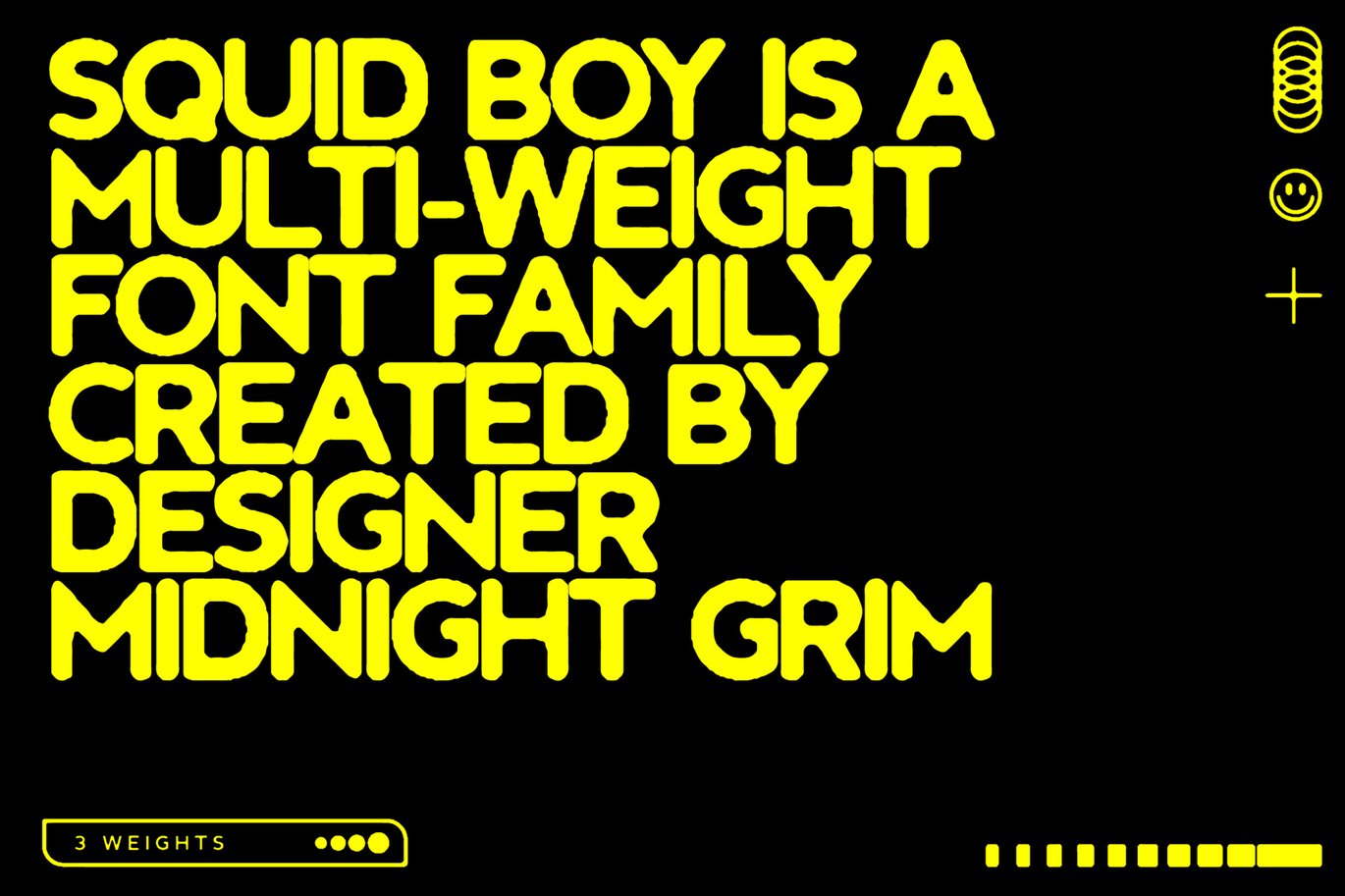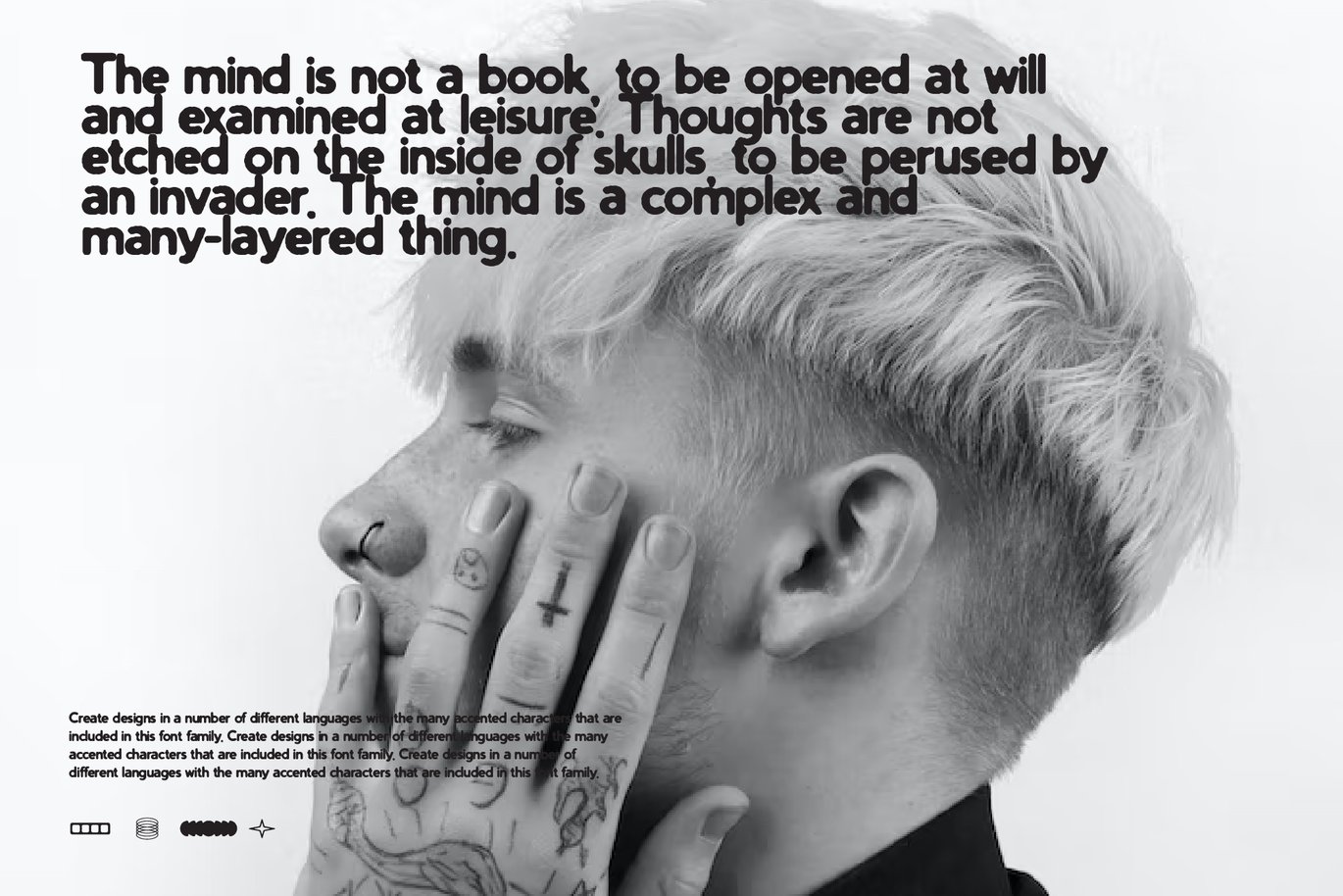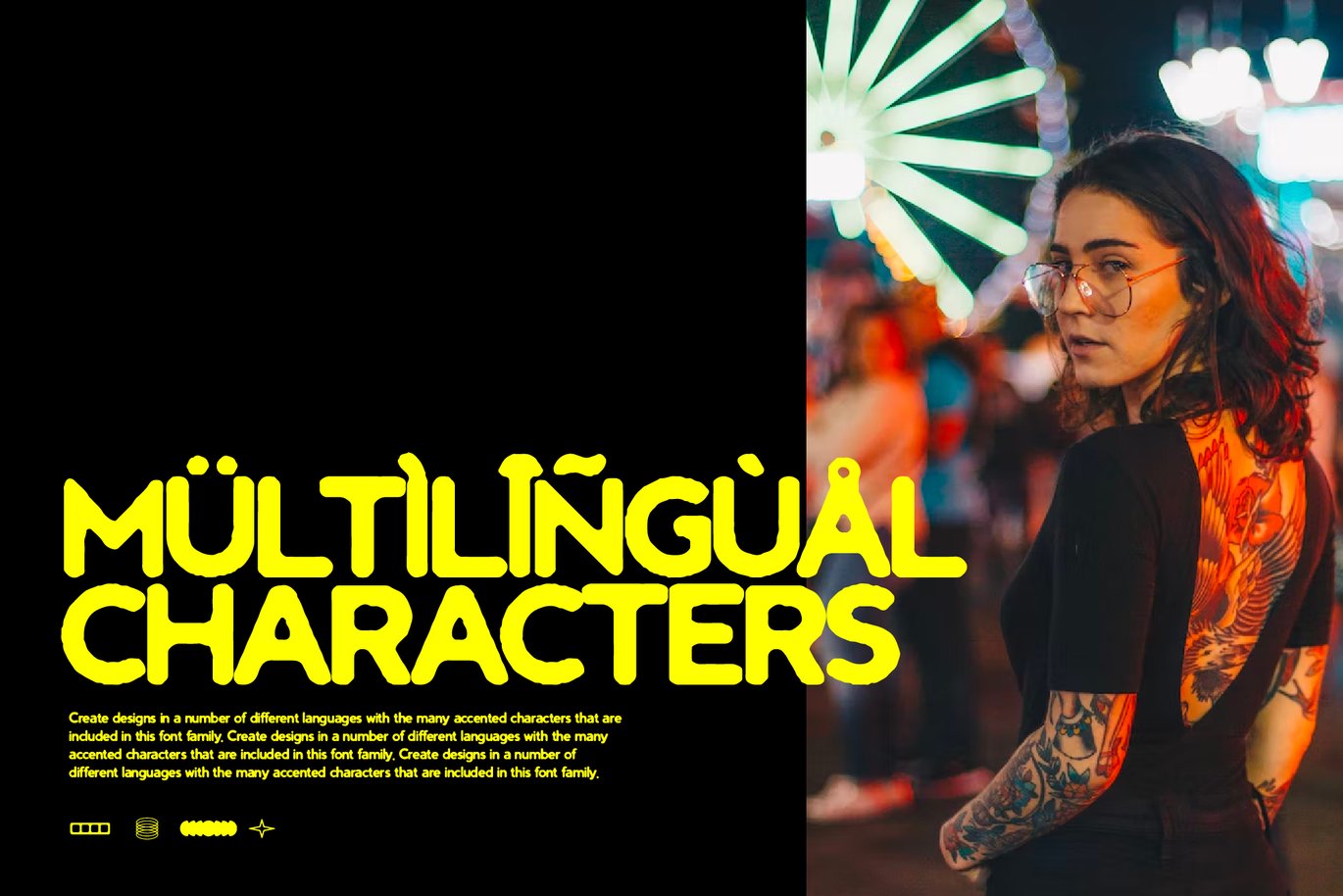
Squid Boy – Inky Bleed Font
Squid Boy – Inky Bleed Font is a versatile typeface ideal for various projects, including logos, branding, posters, blog headers, advertisements. The free version includes a full set of uppercase and lowercase letters, available in OTF format.